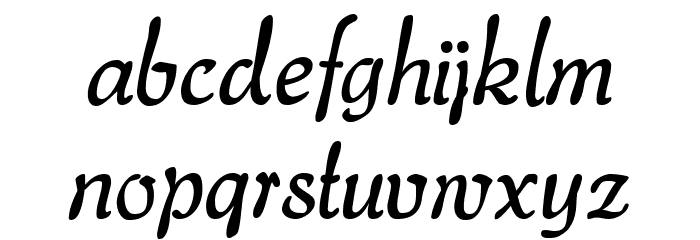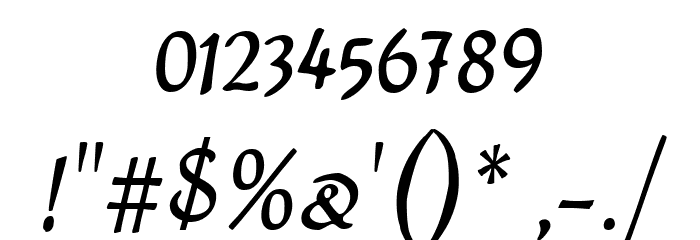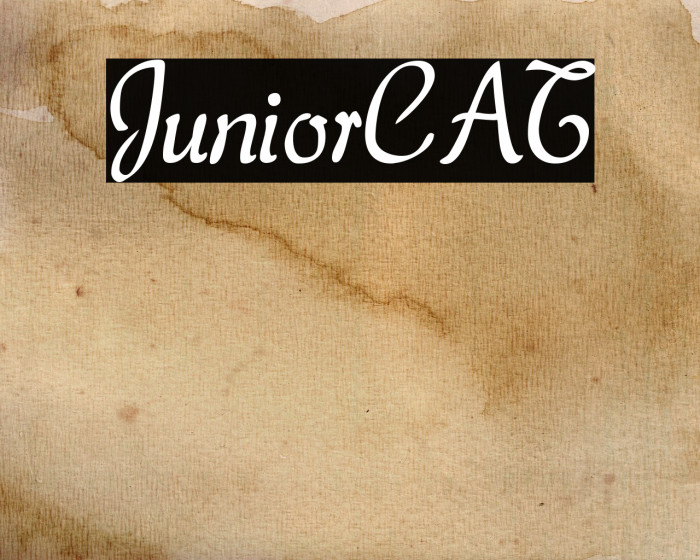
JuniorCAT Font
This font features a flowing, cursive style that combines elegance with readability. The uppercase letters are characterized by sweeping curves and a slight slant, giving them a dynamic and graceful appearance. The lowercase letters maintain a consistent style, with smooth connections between characters that enhance the script-like quality. Numbers and special characters are designed to match the overall aesthetic, ensuring a cohesive look across all text elements. The font's design is both classic and versatile, making it suitable for a wide range of applications.
A flowing, cursive font with elegant curves and a classic style.
- Proposed Projects: Ideal for wedding invitations, elegant branding, greeting cards, and decorative headings.
- Overall Style: Classic
- Use Case: Headlines, Invitations, Decorative text